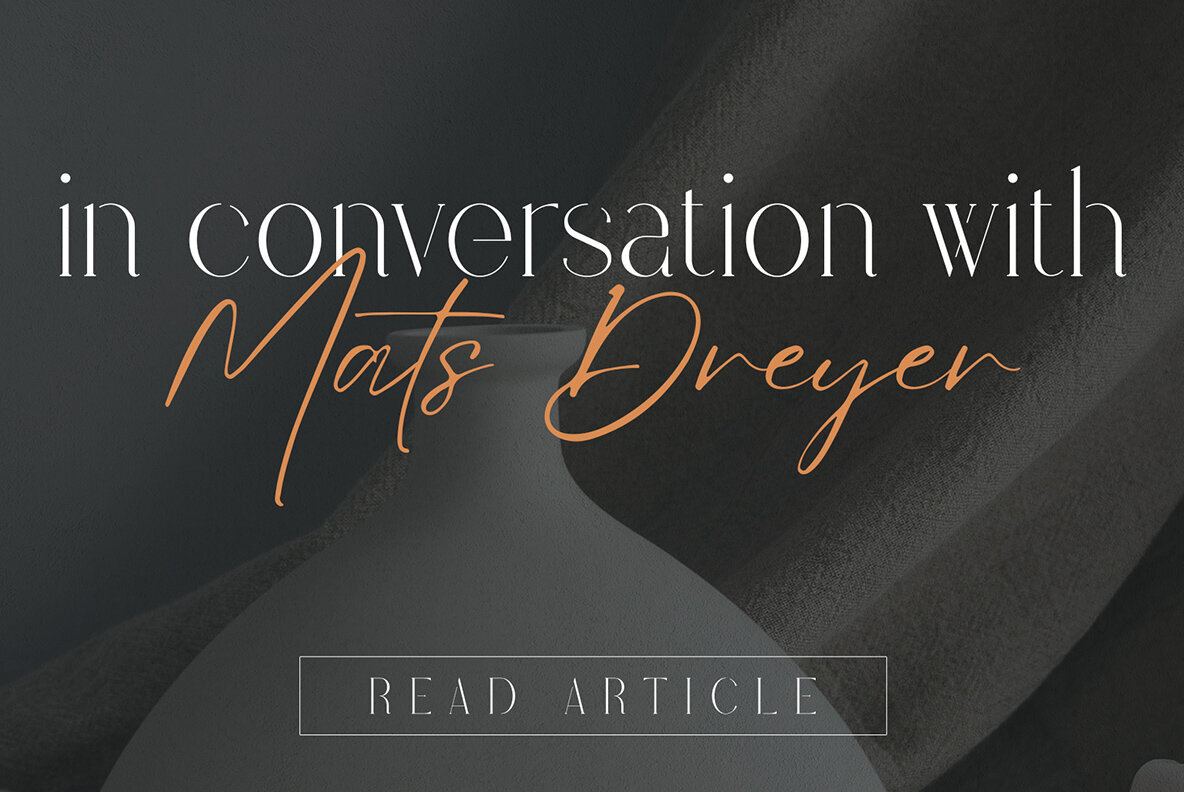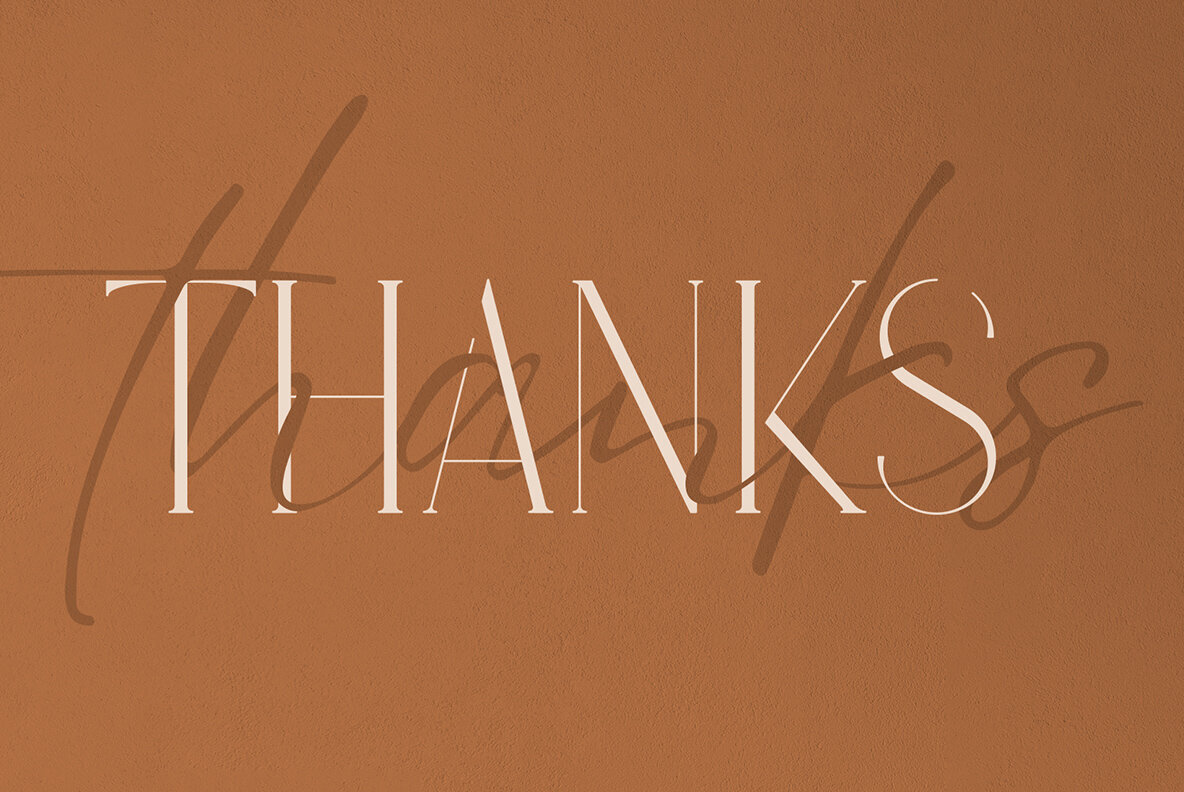
Eyesome Font
Eyesome Regular
Eyesome Italic
Eyesome Script
Introducing Eyesome - Modern Font Duo. This typeface is elegant and organic with multilingual support, perfect for branding projects or even just text overlay on top of any image you want!
FEATURES:
- Uppercase, lowercase, numeral, punctuation & Symbol.
- Regular,Italic,Script.
- Multilingual support.